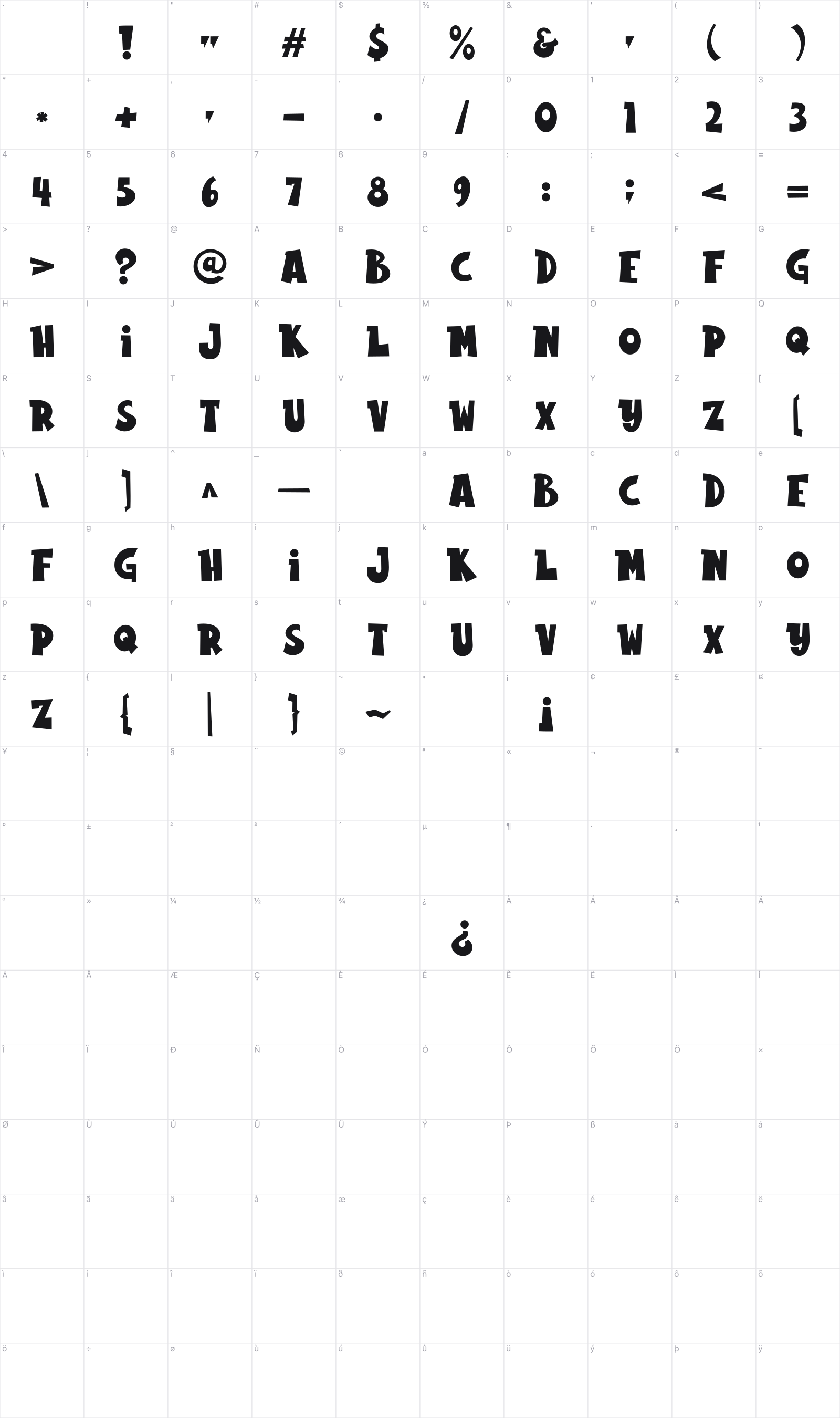
Rabbito
by Figuree Studio
Rabbito is a chunky, playful display face from Figuree Studio with bold letterforms that bounce with cartoon energy. The shapes are rounded and slightly quirky, giving each character a personality that feels right at home on children's book covers, game titles, and animated branding. It's built for headlines and short text where fun comes first and subtlety isn't invited.